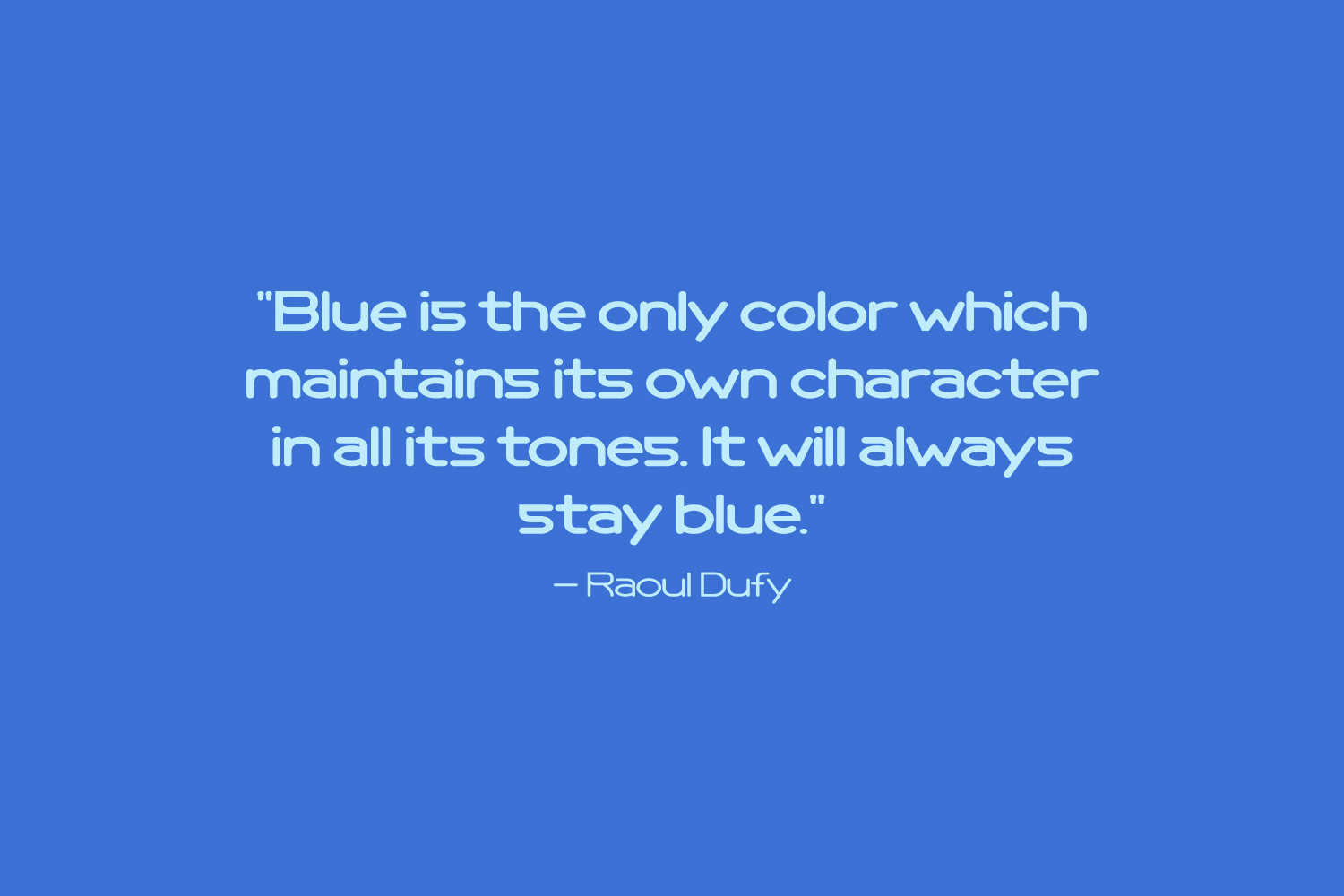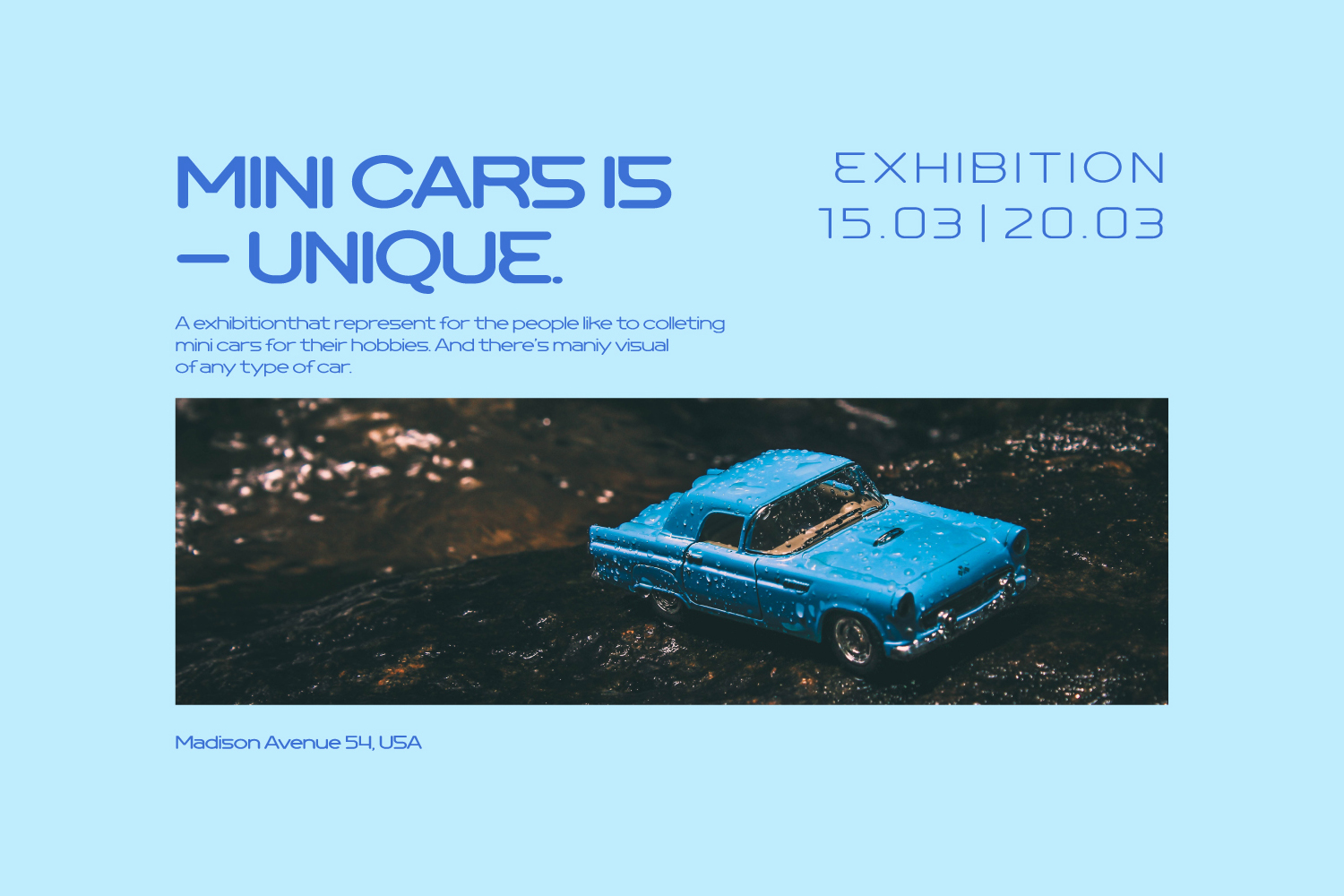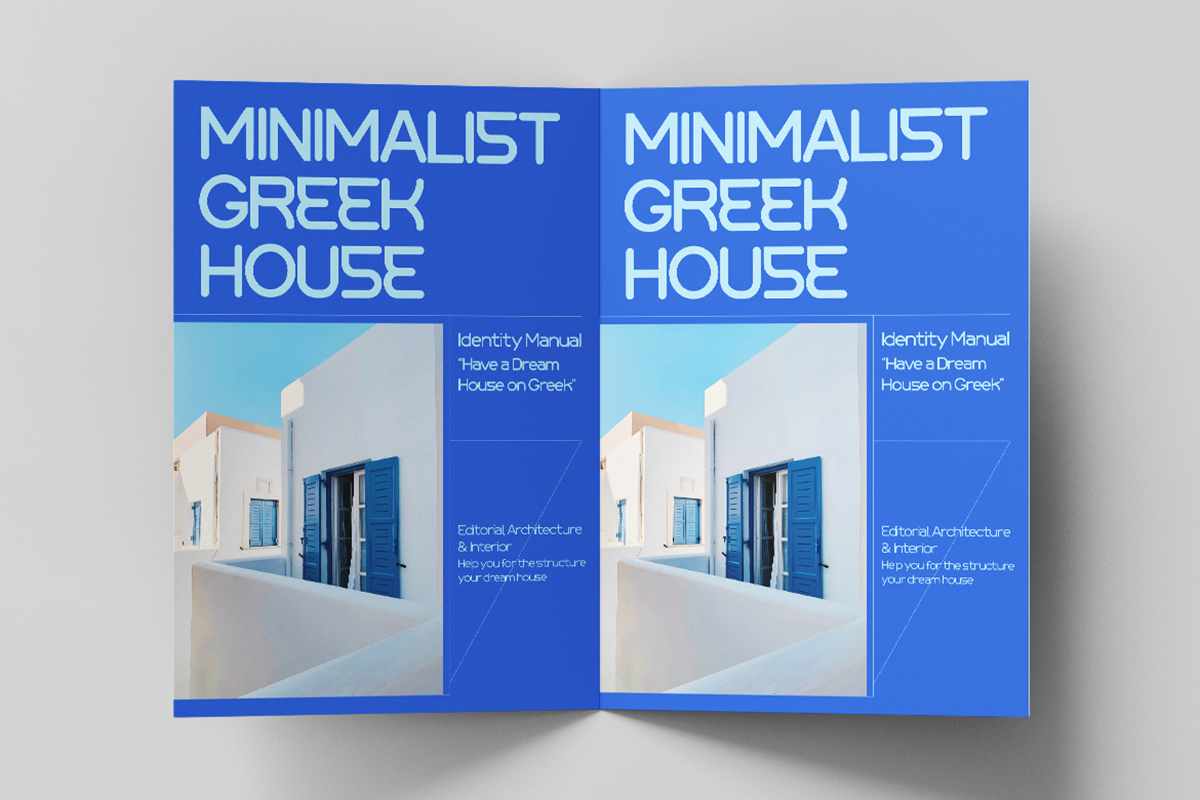
Rebog Free Font
Introducing Rebog Free Font, a versatile sans-serif typeface designed to enhance a multitude of tasks. Infuse your project with a sense of uniqueness and allure, capturing the attention of your audience and leaving a lasting impression in their minds.
Elevate the quality of your diverse design ventures by incorporating this font, as it offers distinct character styles for titles, subtitles, and body text. With its range of options, Rebog ensures that your design projects attain excellence and stand out as extraordinary. This free typeface was designed by a talented Twin Letter. If you like it don’t forget to check out the full version.